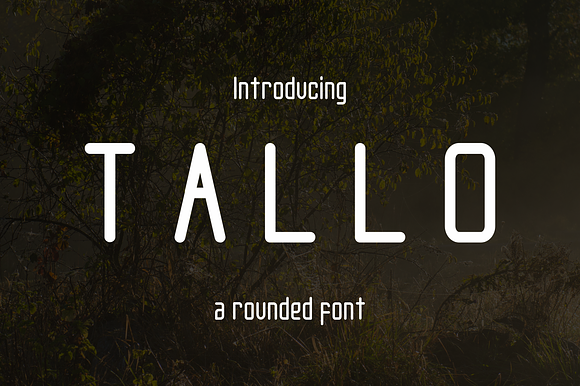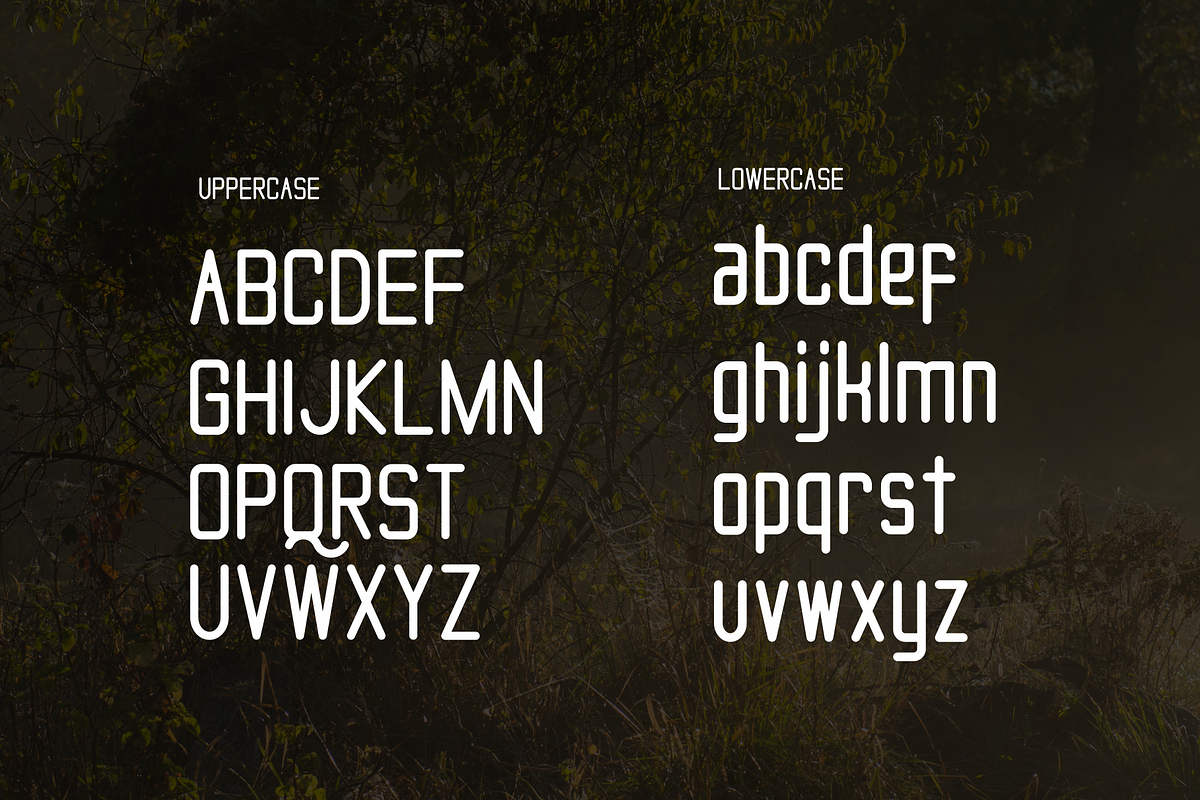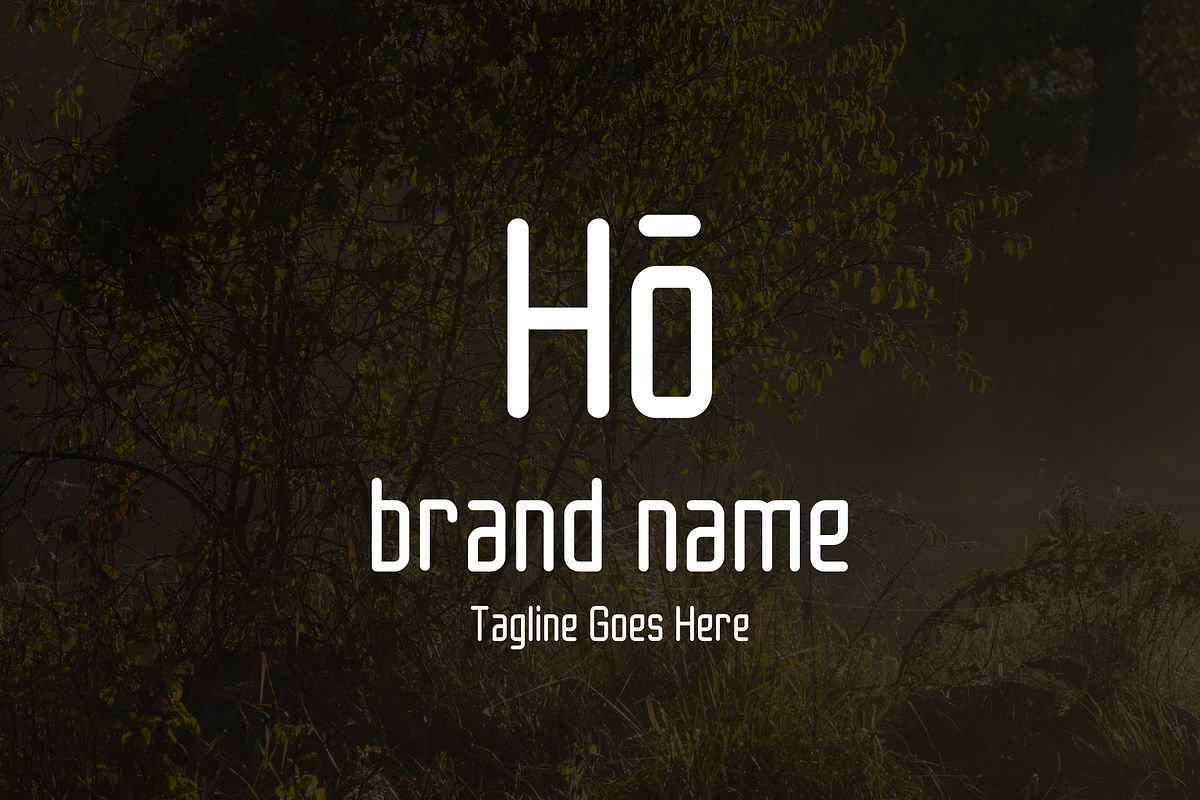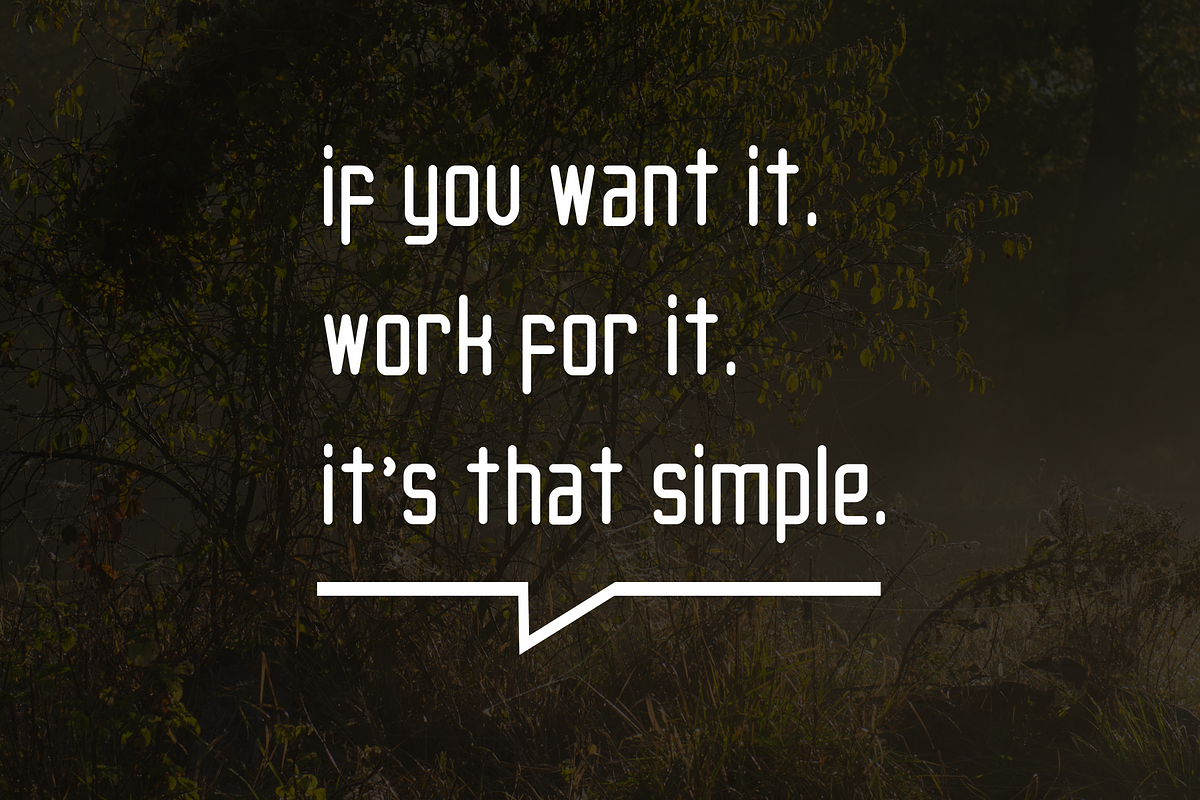
Tall'o Font
Tall'o is an rounded themed typeface that's great for headlines. Includes uppercase letters, numbers and punctuation.
- Includes uppercase letters, numbers and punctuation.
Why Tall'o Font is worth a look
Tall'o Font by Akdesain fits naturally into Branding, posters, packaging, typography.